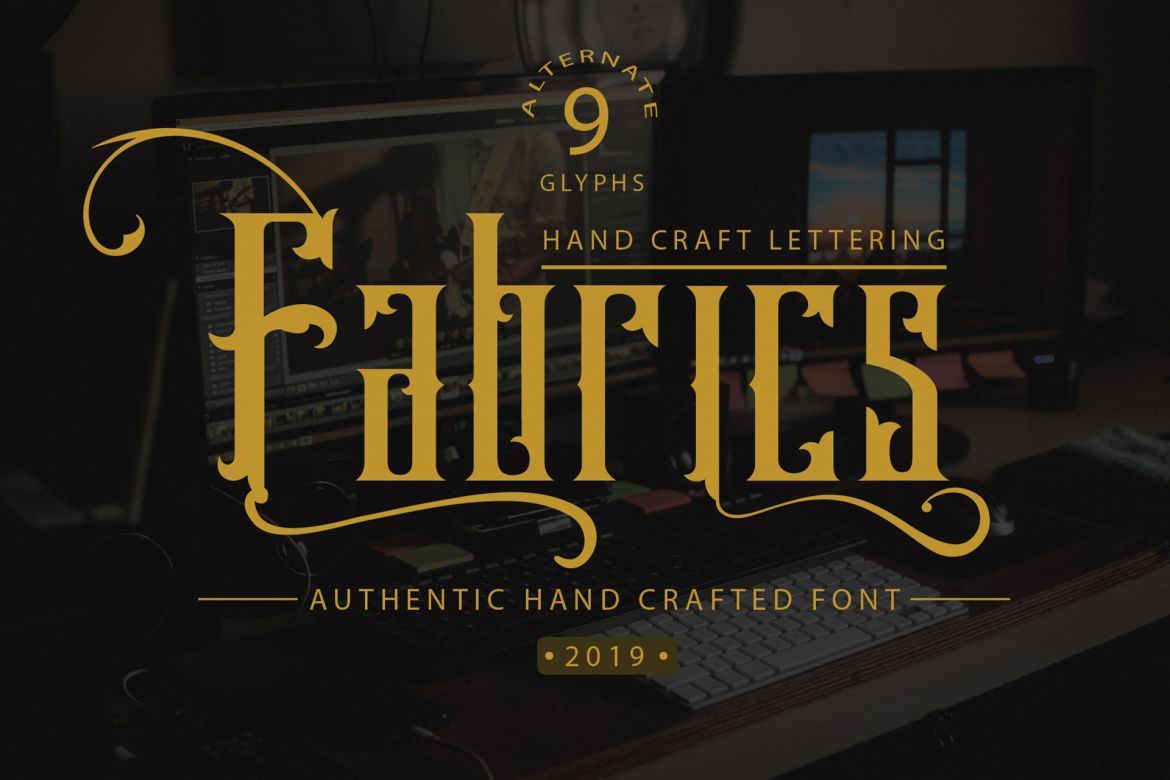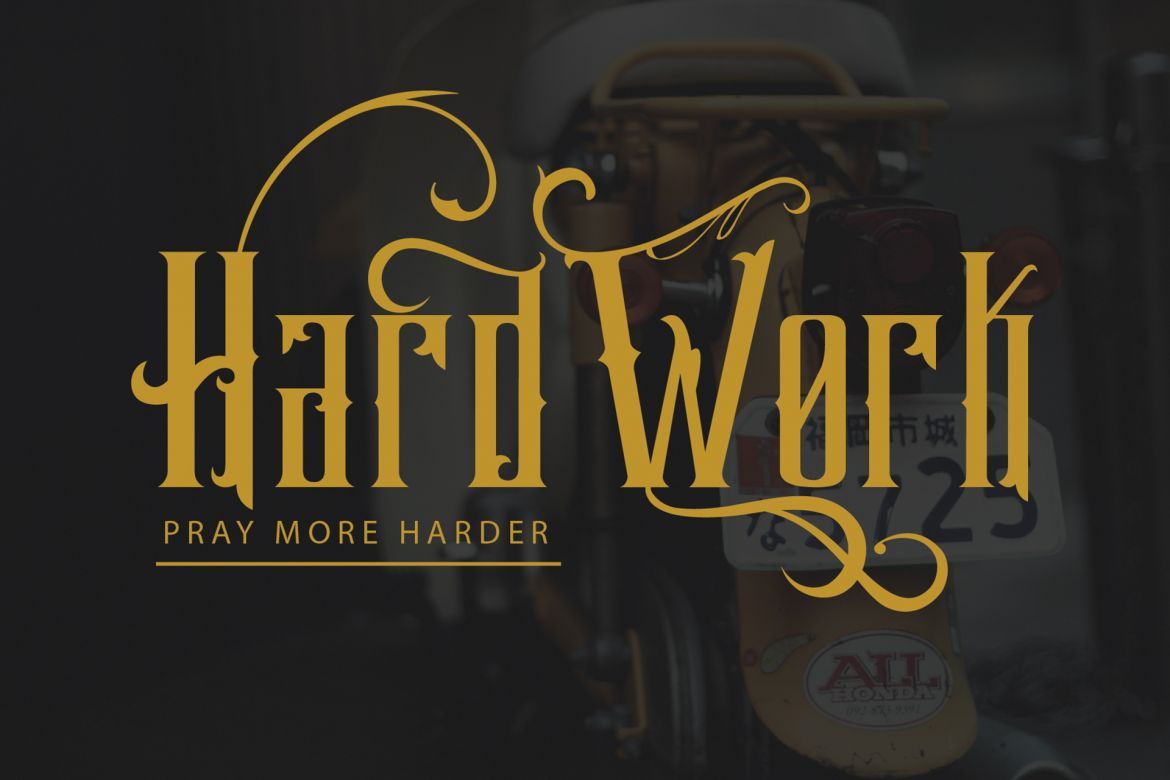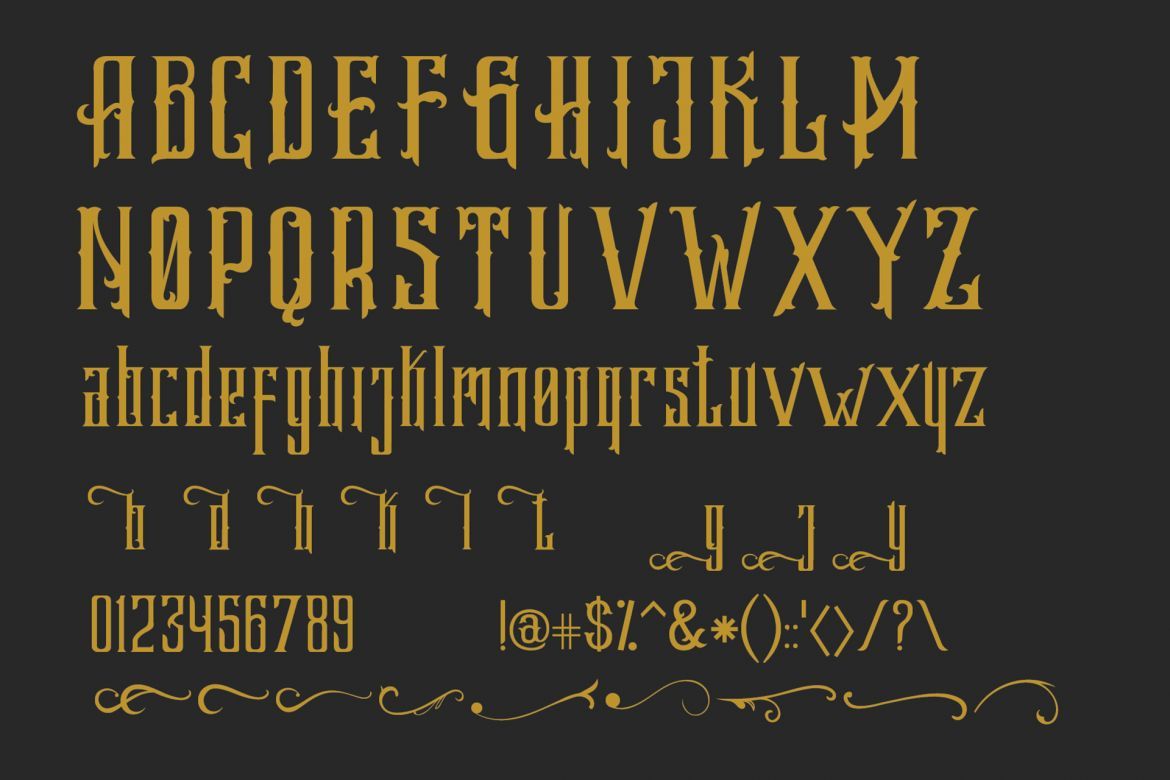
Hallmark Display Font
-- Powerful / Elegant / Vintage --
Hallmark is a strong font family with vintage style. Inspired by vintage movie poster with a strongest look. it's perfect for any design with a vintage style.
USE Hallmark works great in any branding, logos, magazines, films.
• original hand drawn font
• perfect to use it on vintage style design